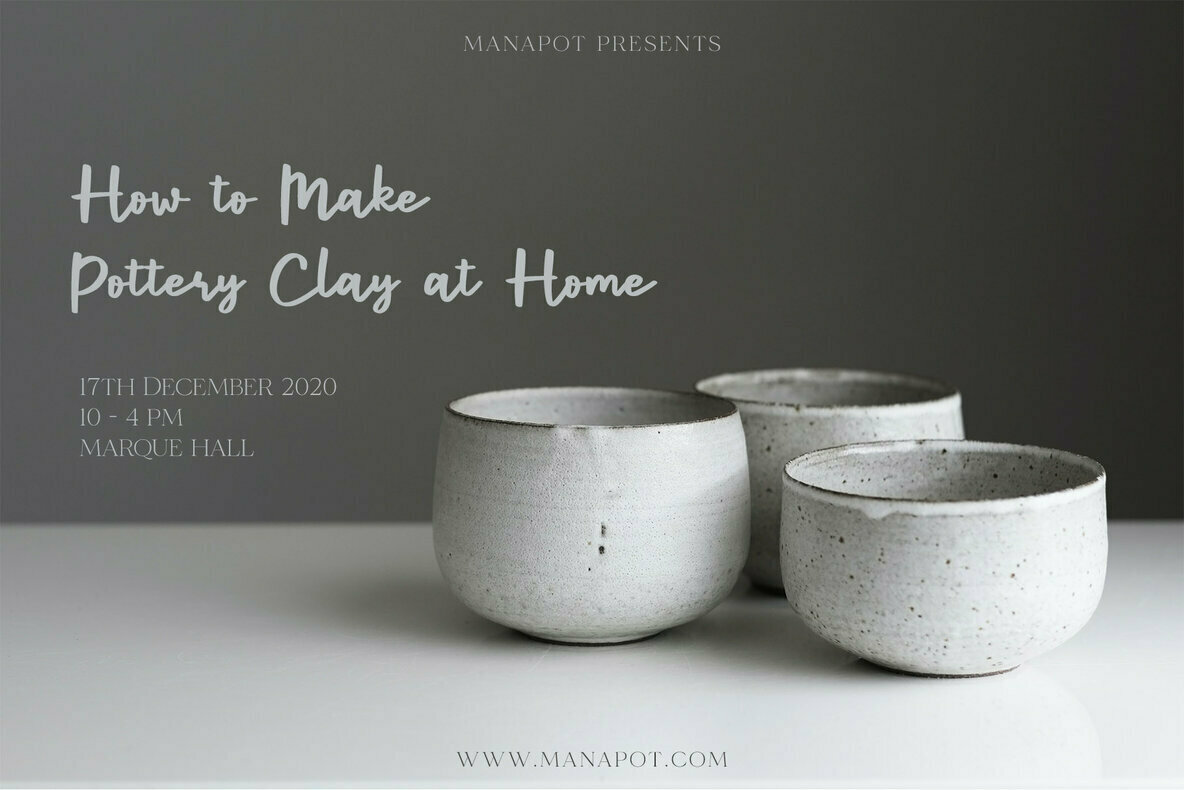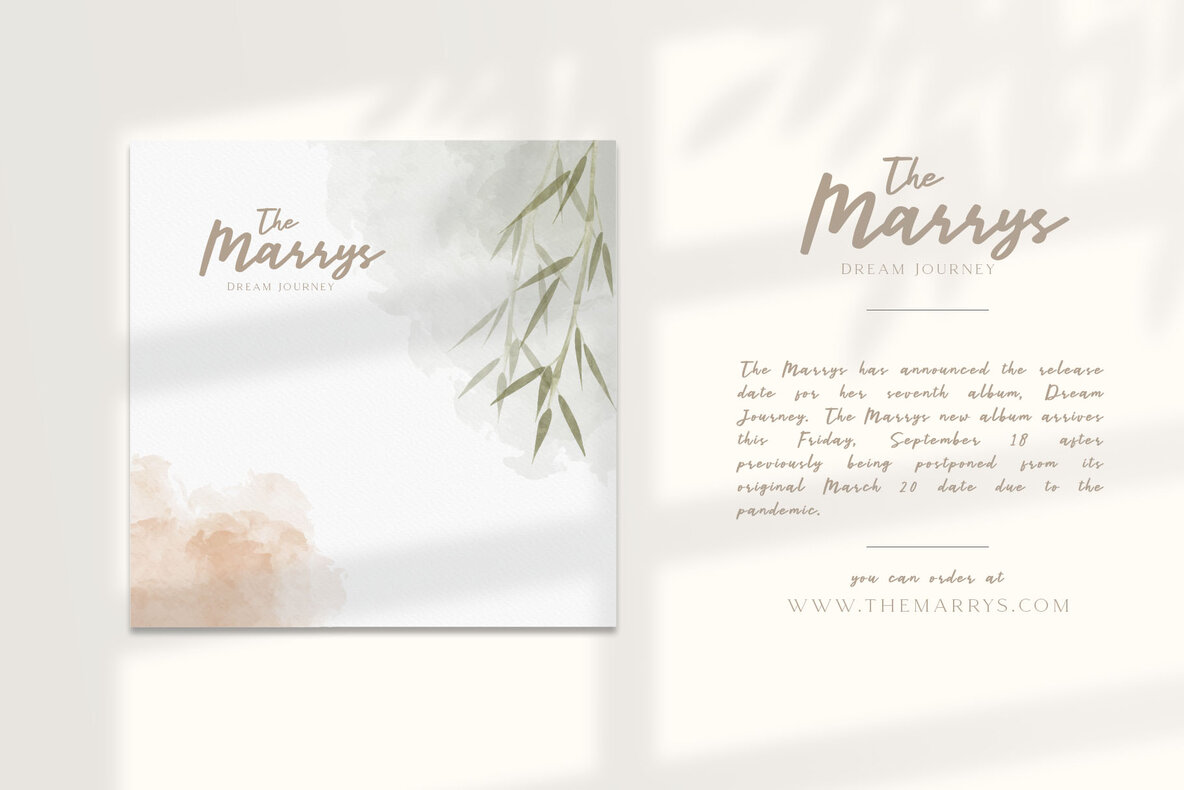
Parcely Font
Parcely is a handwritten script font that captures the authentic expression of real handwriting. Ideal for fashion brands, e-commerce ventures, and chic boutiques, Parcely offers a stylish and upscale aesthetic that suits a variety of modern applications. Whether you're designing logos, greeting cards, or trendy blog headers, this font imparts a sense of sophistication. It's also perfect for wedding boutiques, quotes, posters, and any project aimed at creating a visually pleasing and contemporary feel. The versatility of Parcely makes it a valuable asset for those looking to infuse their projects with a personal and artistic touch.Parcely: Modern Casual Script for Effortless Elegance